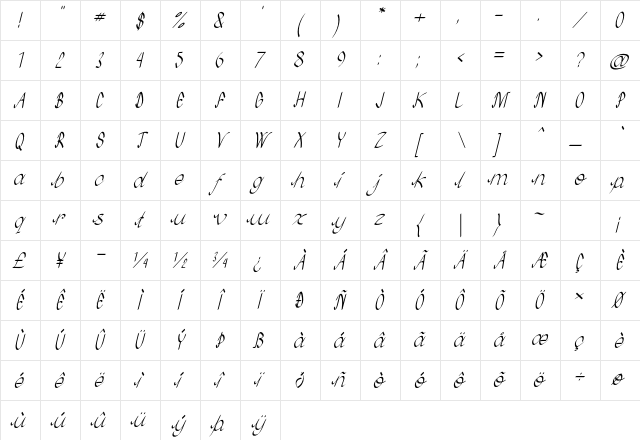
Treon Expanded Italic
Style: Expanded Italic
Treon Family
Treon Expanded Italic
Complete Treon Expanded Italic glyph index. Displaying only characters natively supported by Treon Expanded Italic font.
Design Context for Treon
Treon is a composed and adaptable typeface that performs quietly and consistently across a wide range of design contexts. The slanted form adds forward momentum and visual energy.